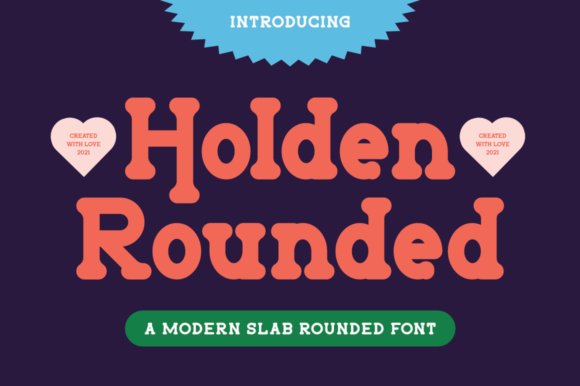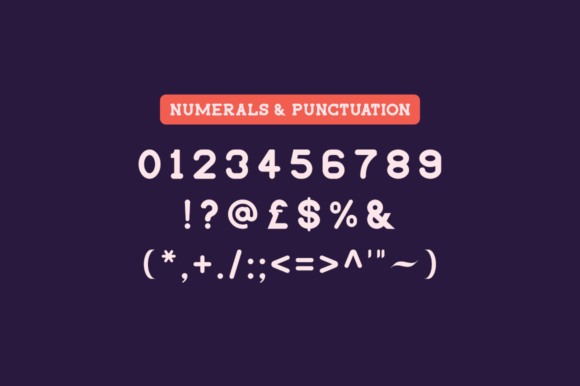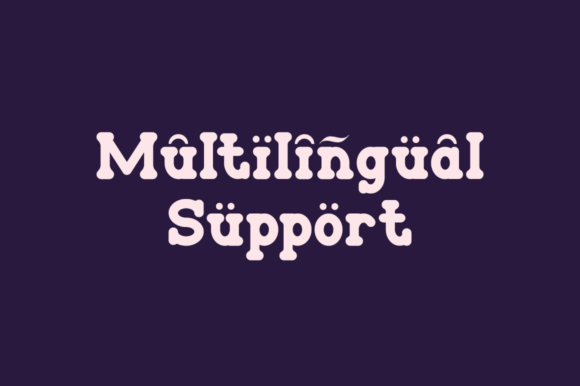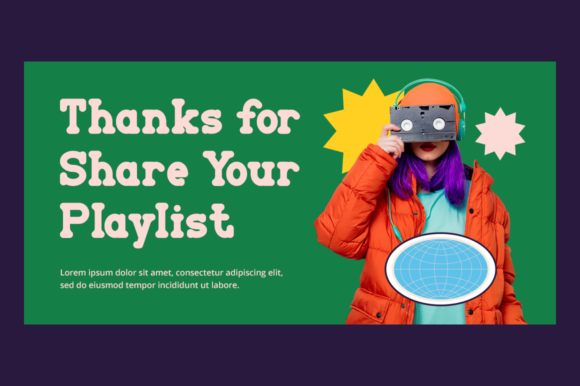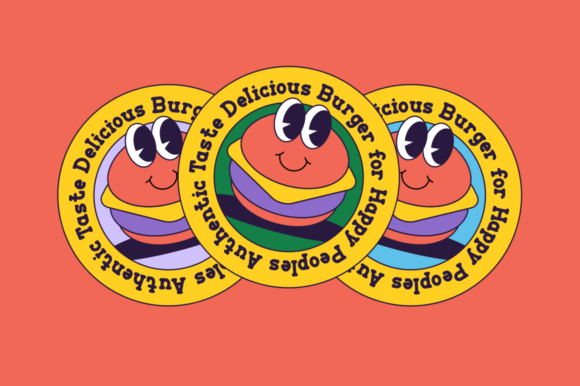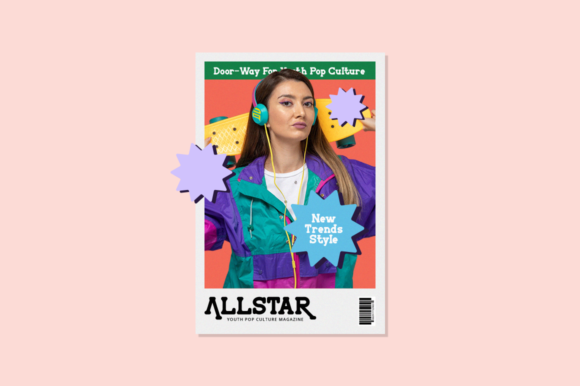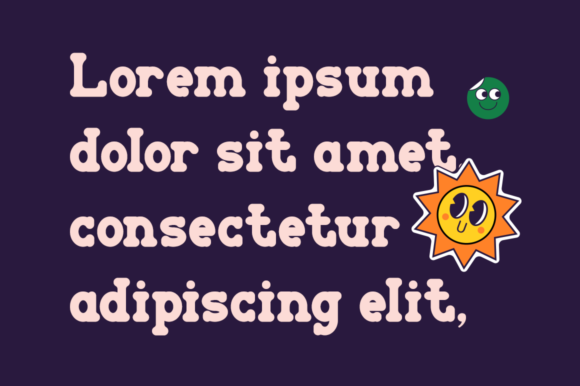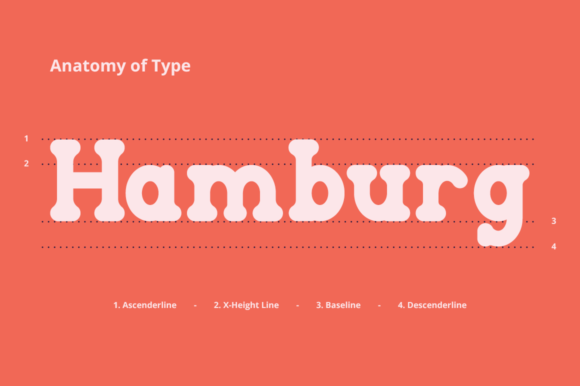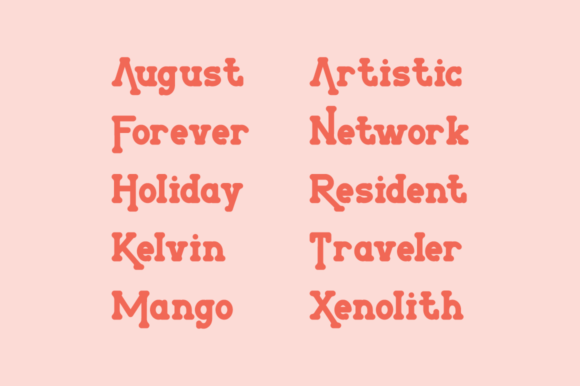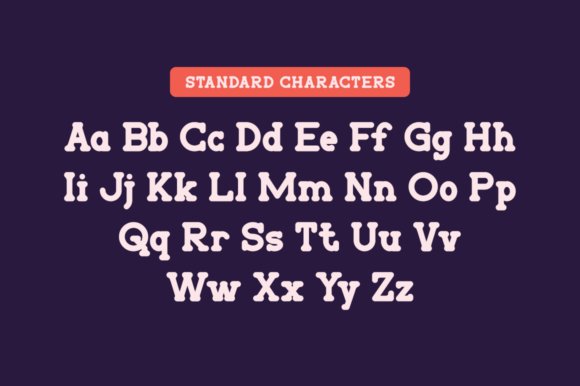
Holden Rounded
Holden Rounded: A Fresh Slab Serif Font
Holden Rounded is a fresh slab serif font that can easily be matched to an incredibly large set of projects. Add it to your creative ideas and notice how it makes them stand out! Its versatile design makes it a great choice for various applications.
Key Features of Holden Rounded
• Fresh Design: Offers a modern and clean look suitable for various applications.
• Slab Serif Structure: Features thick, rectangular serifs typical of slab serif fonts.
• Versatile Application: Ideal for both print and digital media projects.
• Rounded Style: Provides a unique and soft appearance that enhances visual appeal.
Ideal Uses for Holden Rounded
Holden Rounded’s unique characteristics make it particularly well-suited for:
When incorporating Holden Rounded into your designs, consider these tips:
• Use for headlines or short blocks of text to showcase its fresh style.
• Utilize its rounded style across various creative projects to enhance visual appeal.
Holden Rounded is an excellent choice for designers looking to add a fresh slab serif font to their typographic toolkit. Its ability to bring style and versatility to various design projects makes it stand out in the world of typography. Whether you’re working on logos, creating layouts for magazines, or developing content that requires a touch of modernity, Holden Rounded offers the perfect blend of style and functionality.
Furthermore, Holden Rounded’s unique design allows it to shine in various contexts. From vintage-inspired designs with a modern twist to more contemporary layouts that need a touch of uniqueness, this font can elevate your projects. Its striking yet functional style works particularly well in designs that require a thoughtful and engaging mood.
In conclusion, Holden Rounded is a font that truly captures the essence of creativity and impact in typography. Its ability to work well in both minimalist projects and more elaborate layouts showcases its flexibility. For those looking to add a touch of unique charm to their work, Holden Rounded can even enhance themed creations with its distinctive style. It’s the perfect choice for designers seeking to make a strong, stylish impact across a wide range of creative projects.